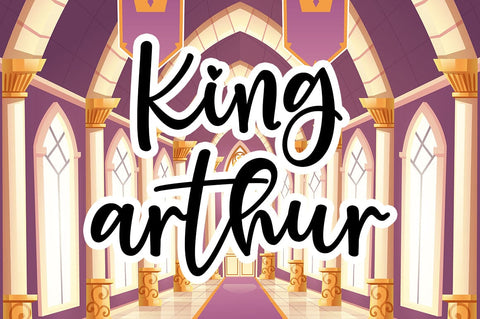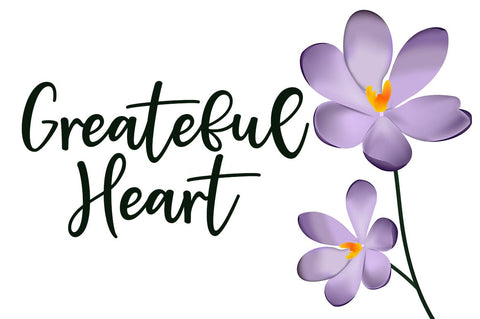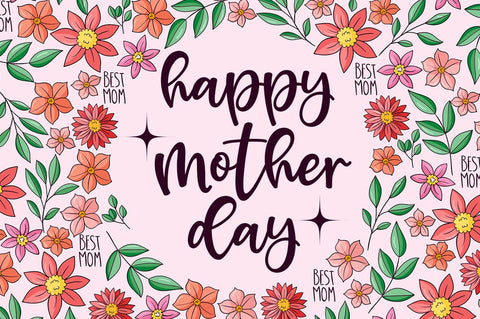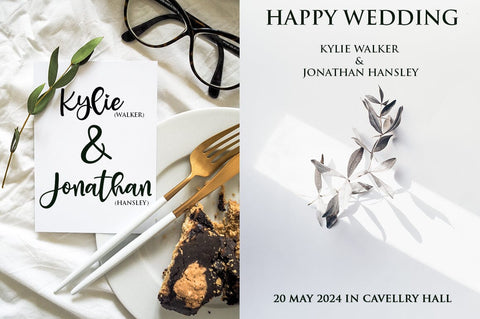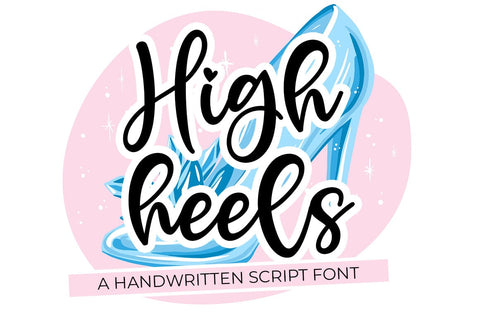
High Heels
High Heels Script is a modern calligraphy design, including Regular. This font is casual and beautiful with swash. Can be used for various purposes. such as logos, product packaging, wedding invitations, branding, headlines, signage, labels, signatures, book covers, posters, quotes, and more.